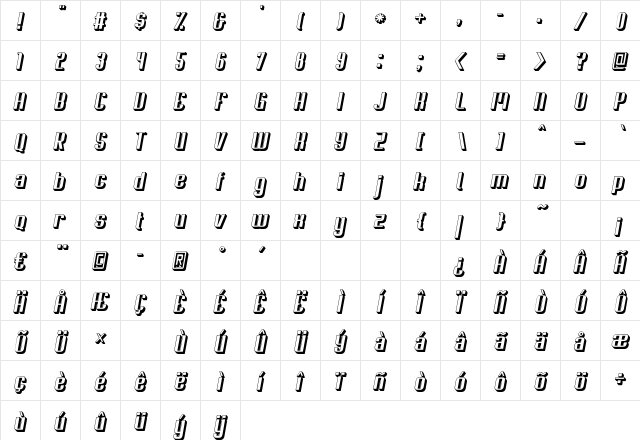
Soupertrouper 3DOblique
Style: 3DOblique
Design Context for Soupertrouper
Soupertrouper is a composed and adaptable typeface that performs quietly and consistently across a wide range of design contexts. The slanted form adds forward momentum and visual energy.
Pro Tip: Use Soupertrouper for emphasis, pull quotes, and subheadings where its slanted energy can add rhythm to the layout.